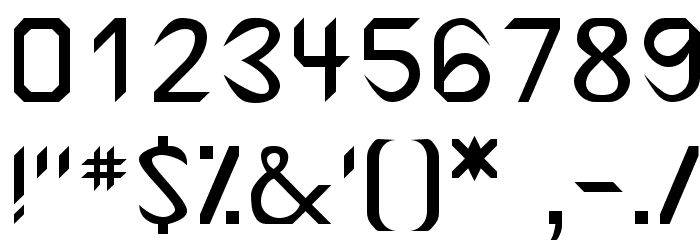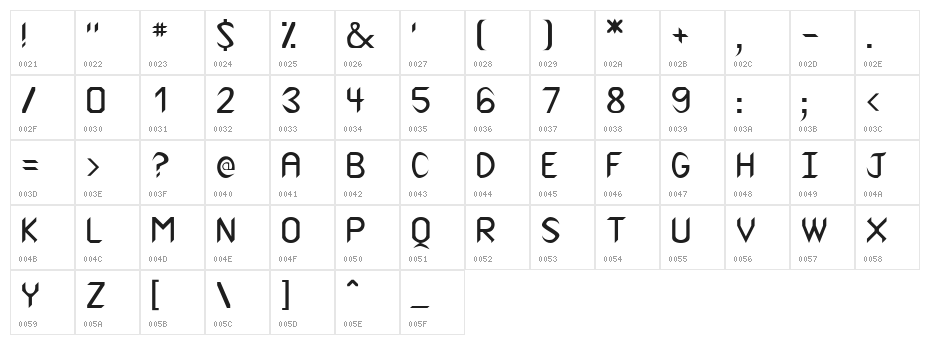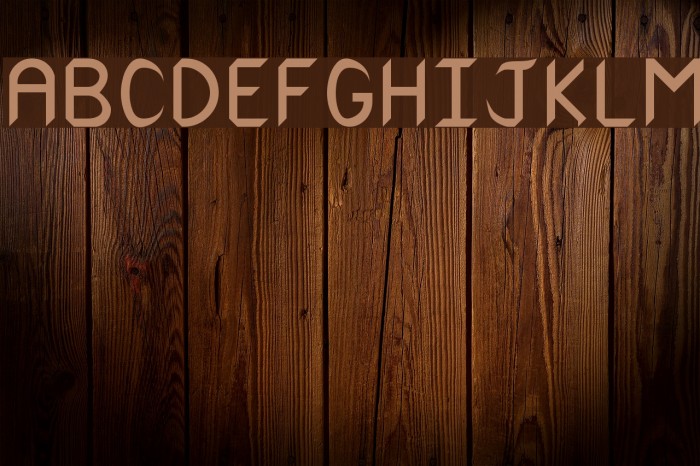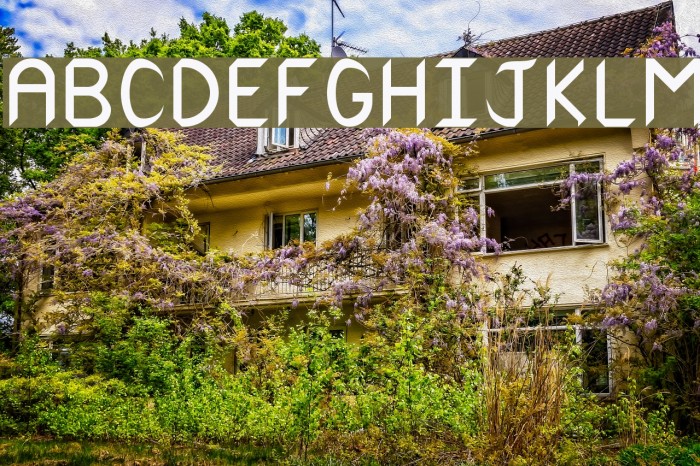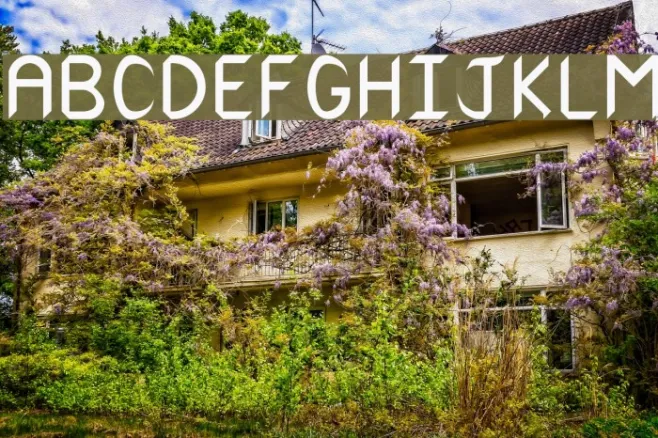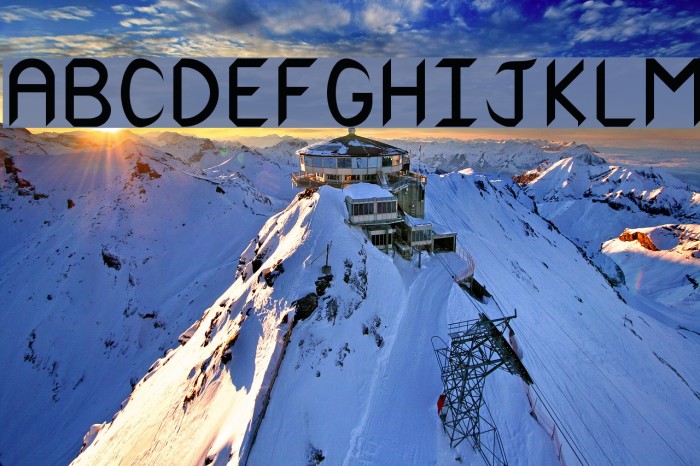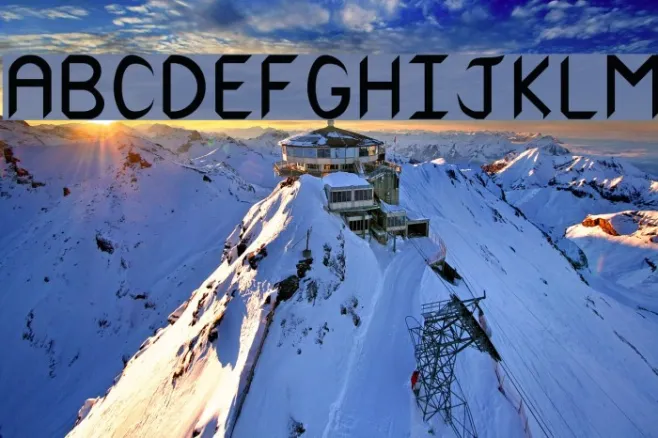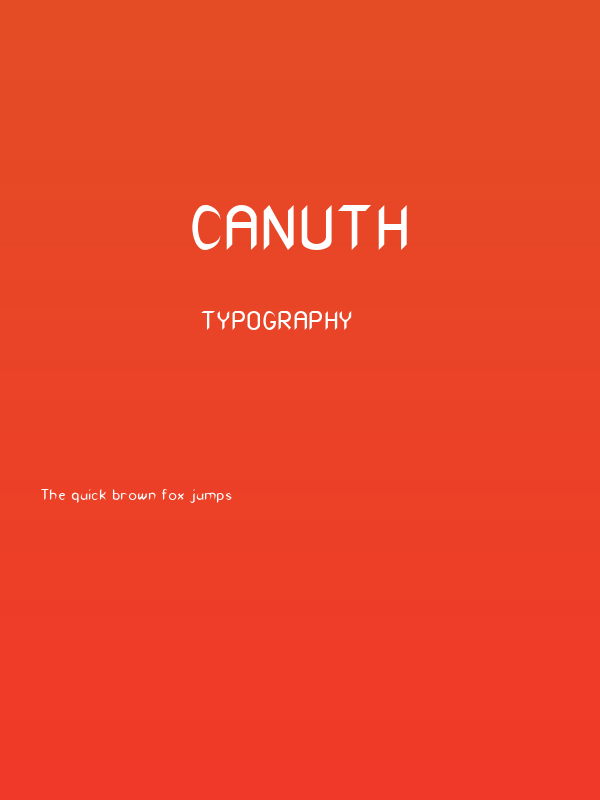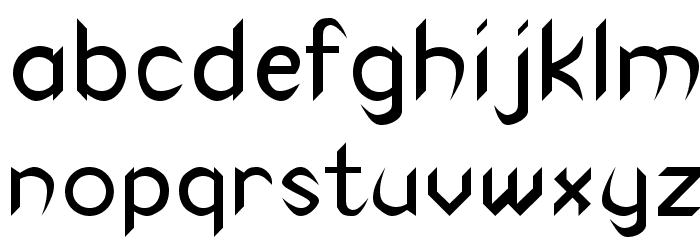
Canuth Font
Canuth Description
This font features a unique and modern design with angular and geometric elements. The uppercase letters are bold and striking, with sharp edges and a futuristic feel. The lowercase letters maintain the angular style, providing a cohesive look across the typeface. Numbers and special characters are designed to match the overall aesthetic, making them suitable for a variety of uses. The font's distinct style makes it ideal for projects that require a contemporary and edgy appearance.
| Proposed Projects | Ideal for branding, posters, album covers, and digital media that require a modern and edgy look. |